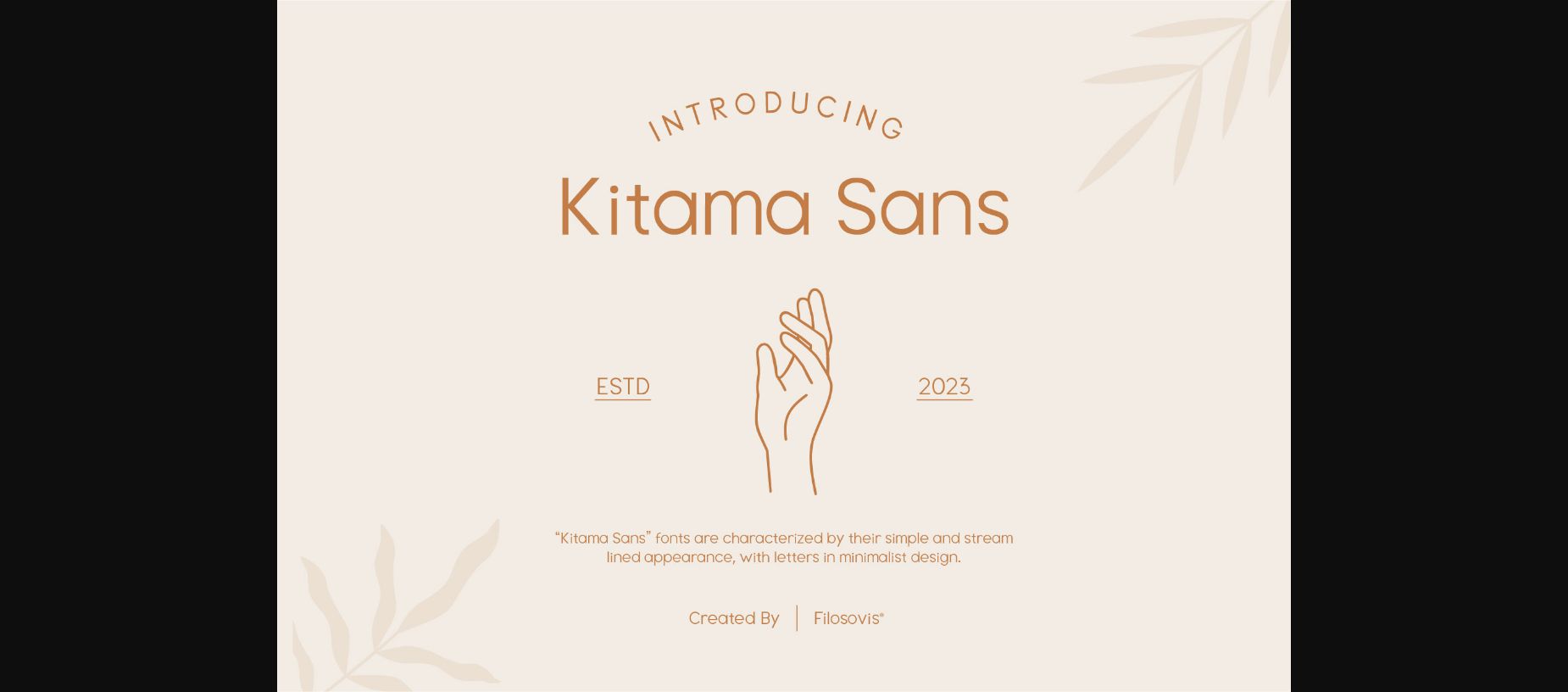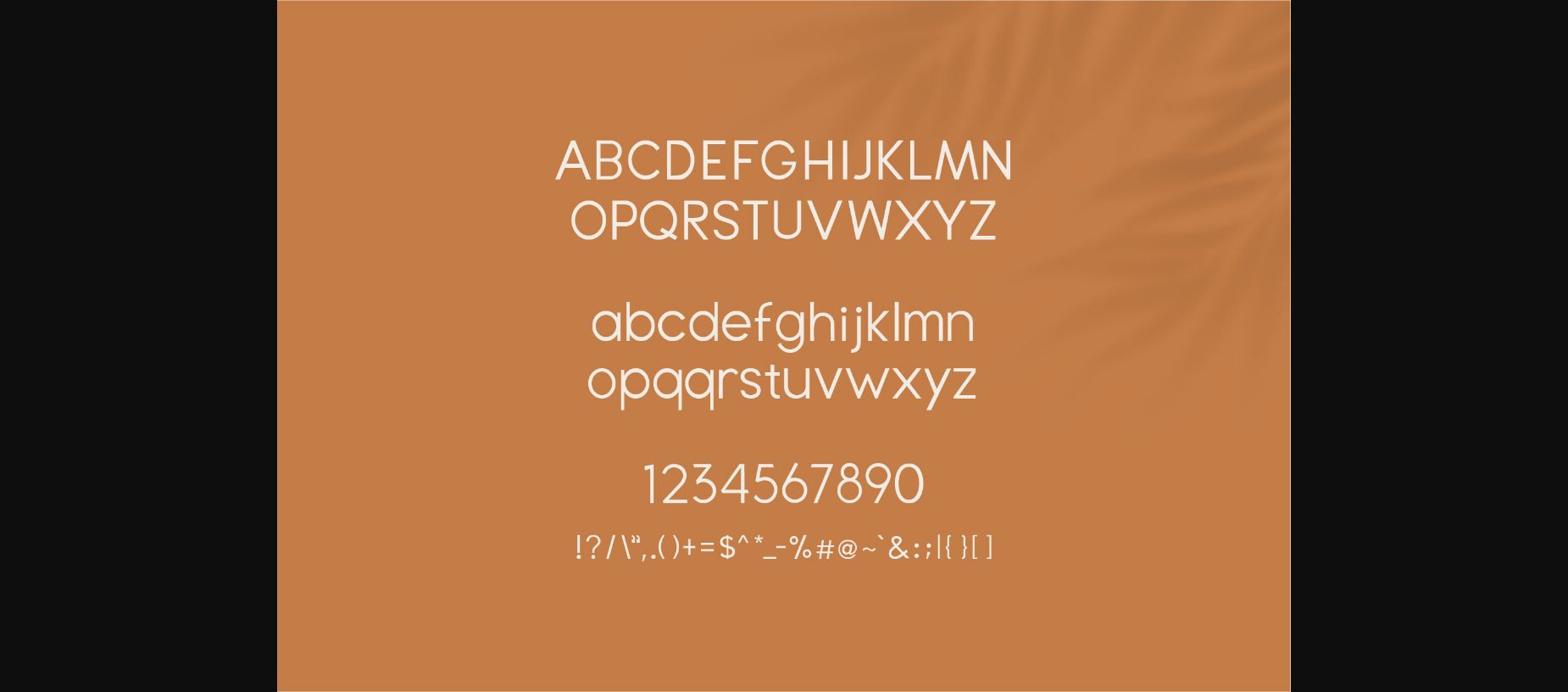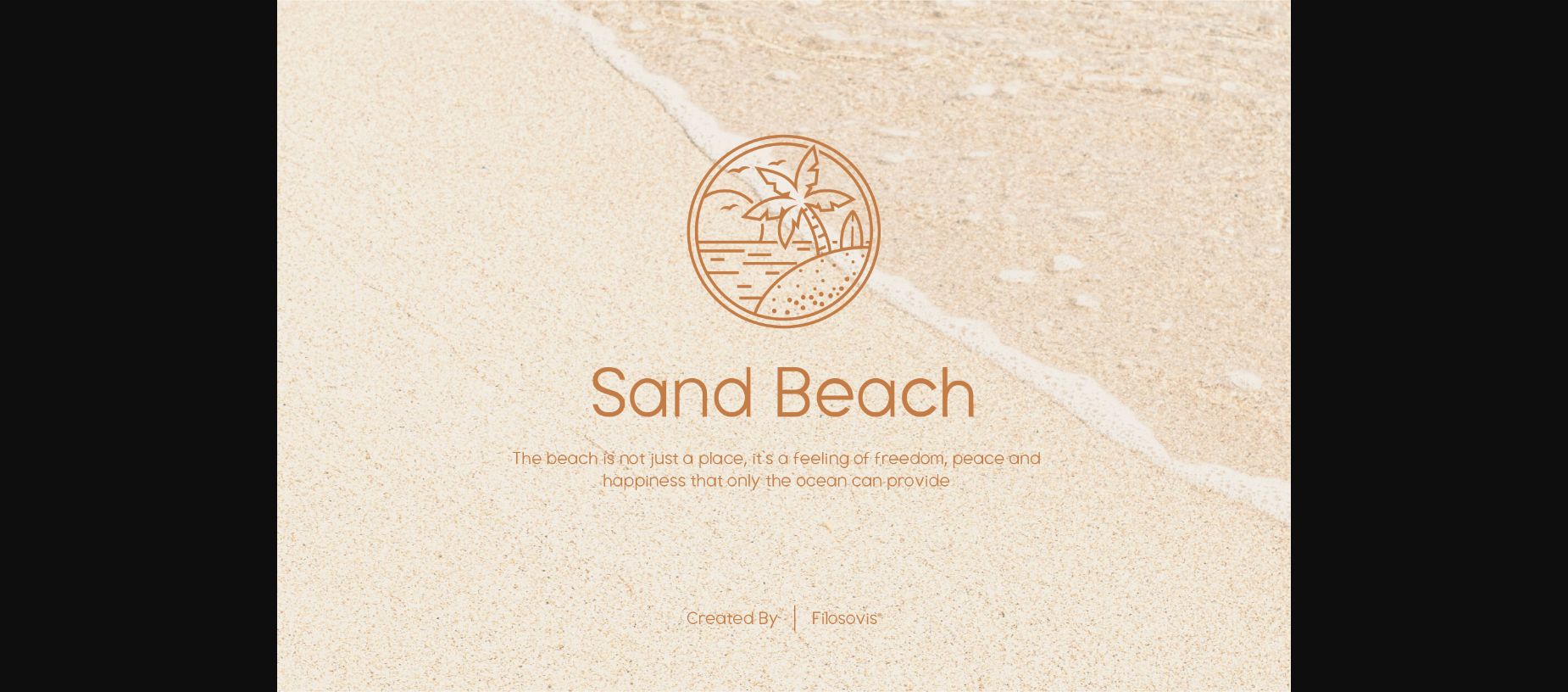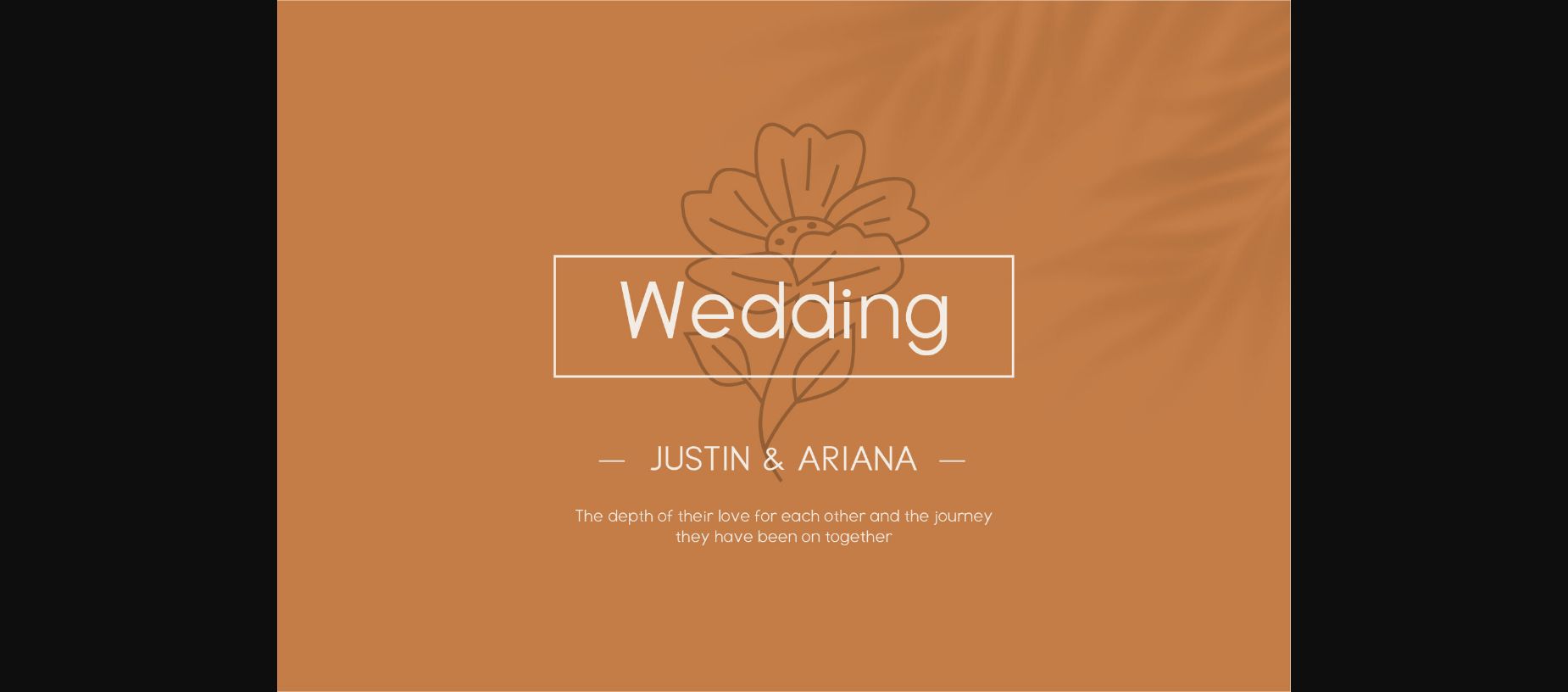
Kitama Sans Font
About Kitama Sans Font
Kitama Sans fonts are characterized by their simple and stream-lined appearance, with letters in minimalist design. Simple but with a strong visual effect, this font will instantly make your creation more appealing than any others.